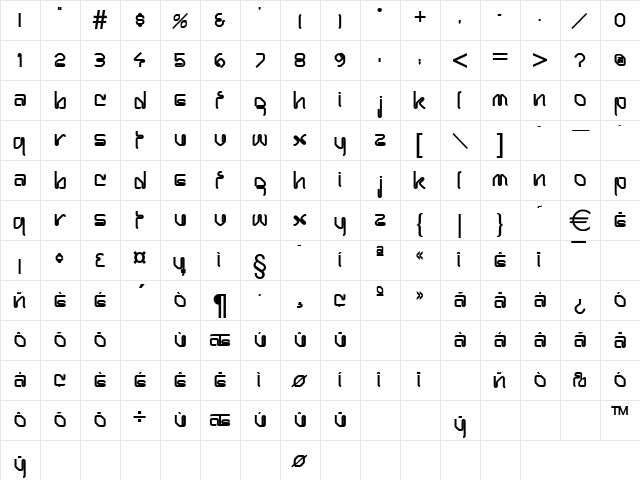
Hanger Bold
Design Context for Hanger Typeface
Hanger is a composed and adaptable typeface that performs quietly and consistently across a wide range of design contexts. The heavy weight commands attention and anchors typographic hierarchies.